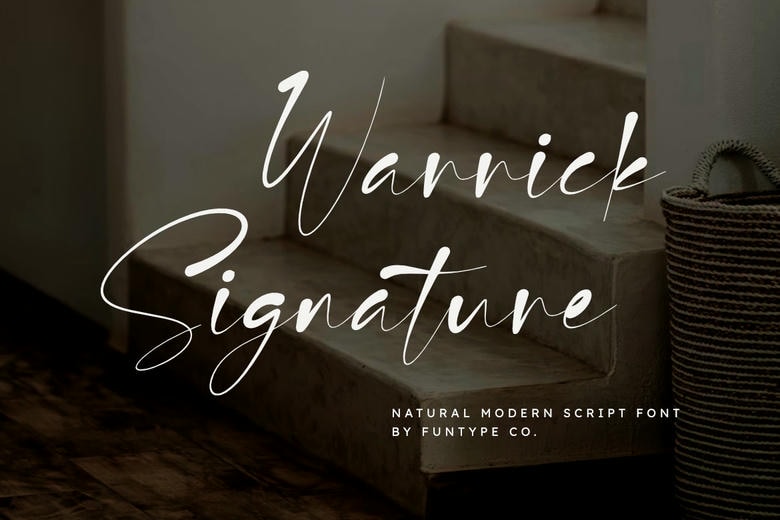
Warrick Signature Font
Warrick Signature is a bold, modern script font made for high-impact and precise typography. Its smooth, clean lines make it a great choice for strong signatures, lifestyle branding, fashion logos, and digital posters.
Its balanced design gives your work a professional and personal touch. The font comes in OTF and TTF formats, so it works with any design platform.
Warrick Signature Script Font